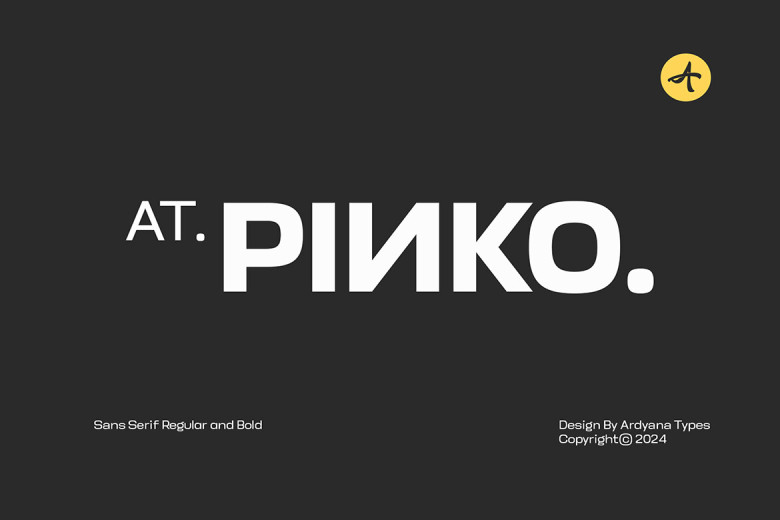
At Pinko Font
AT Pinko font offers designers clarity, sophistication and flexibility all-in-one package. As a sans-serif font offering clarity and boldness in each word displayed, AT Pinko stands out and can easily be read by audiences. Furthermore, AT Pinko can easily adapt to both main text and supporting texts, making this font suitable for posters, films and business cards that require strong impactful titles – perfect examples being posters, films and business cards where each letter can serve both aesthetic and functional functions simultaneously.
At Pinko Sans Serif Font